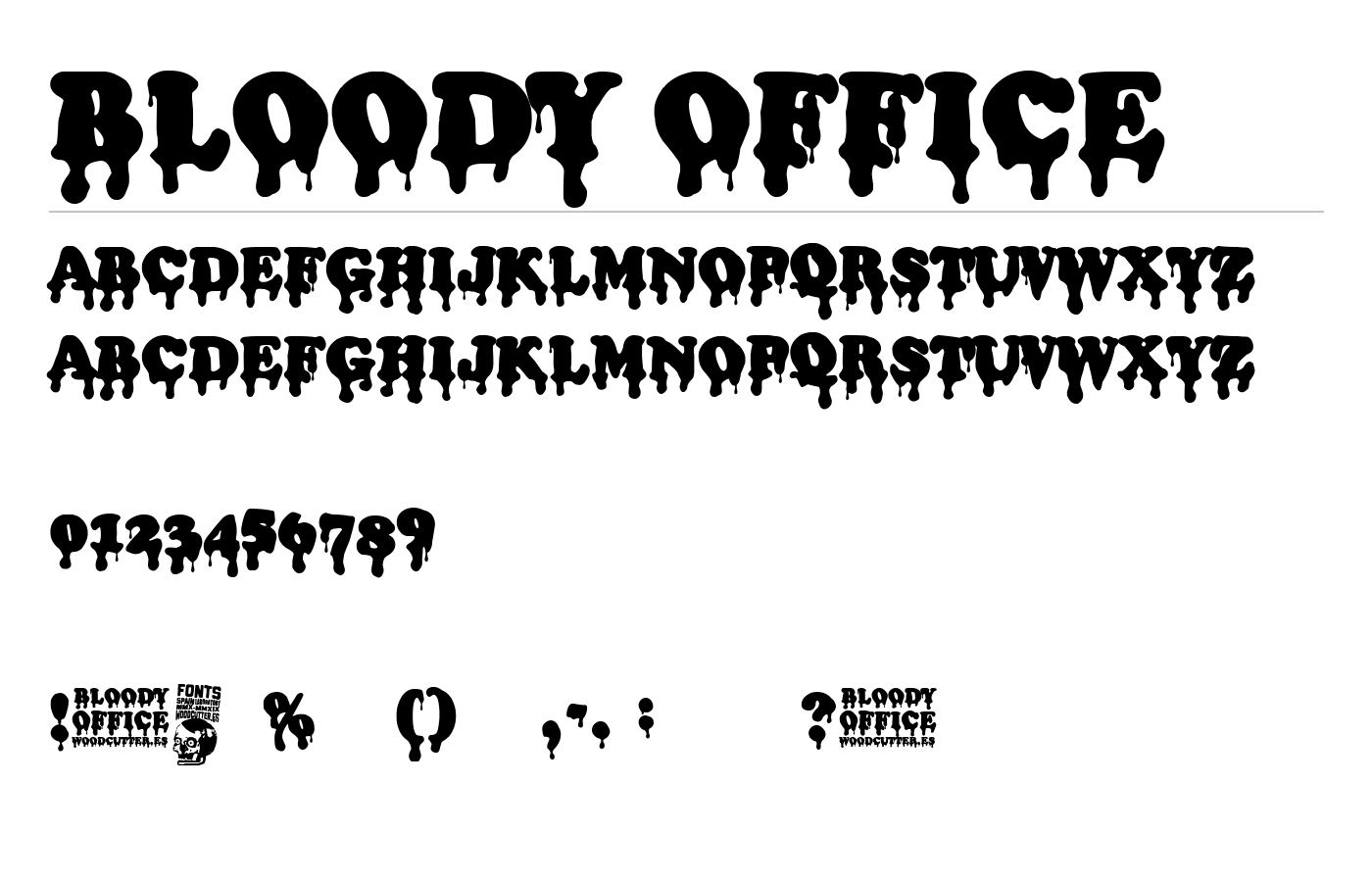
Bloody Office is a bold, decorative font with a dripping, liquid-like design that evokes a spooky, horror-themed atmosphere. Its heavy weight and irregular shapes make it ideal for eye-catching headlines, posters, or branding that seeks to convey a playful yet eerie vibe, perfect for Halloween or horror-related projects. This font works best in creative contexts where a dramatic and theatrical impression is desired.